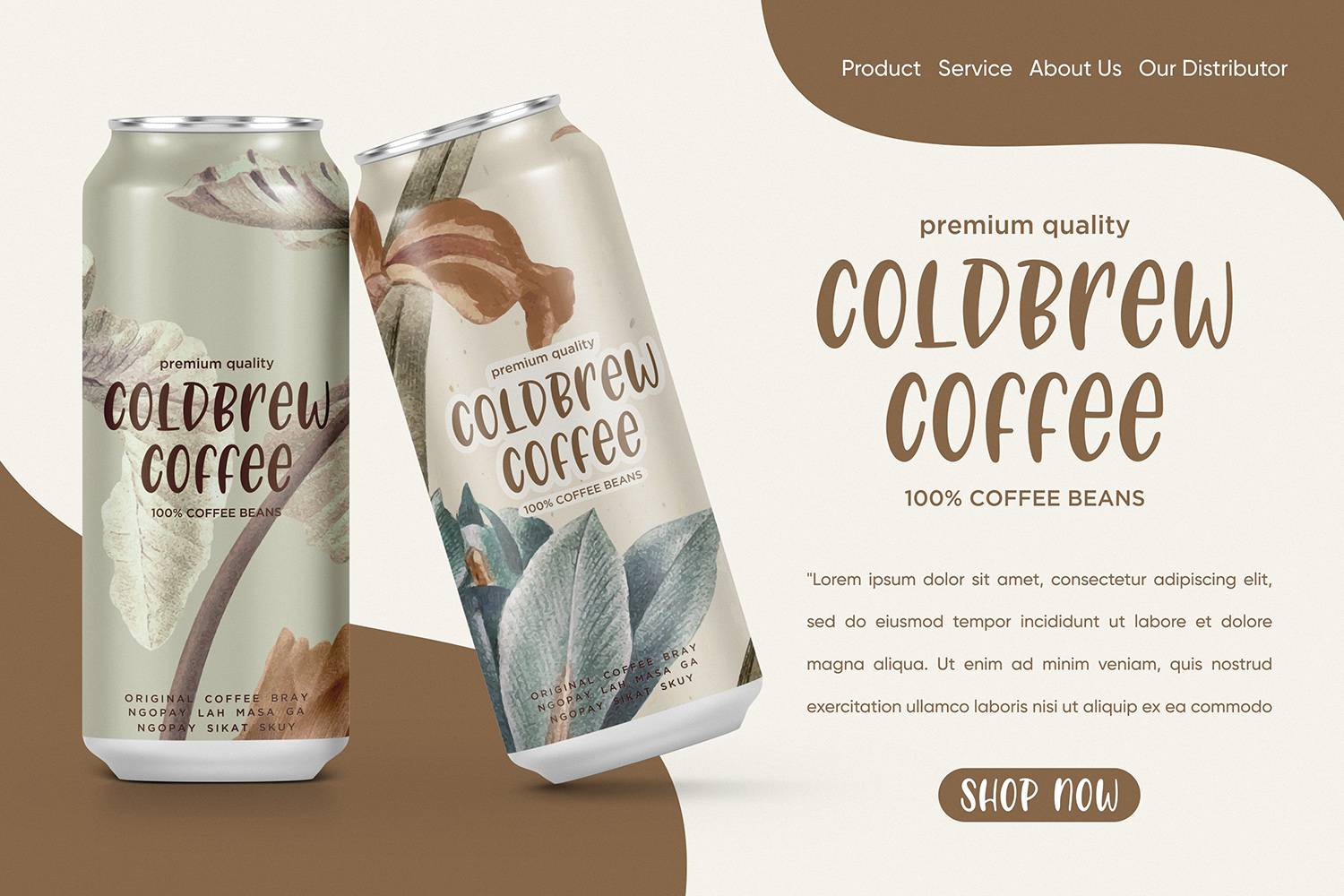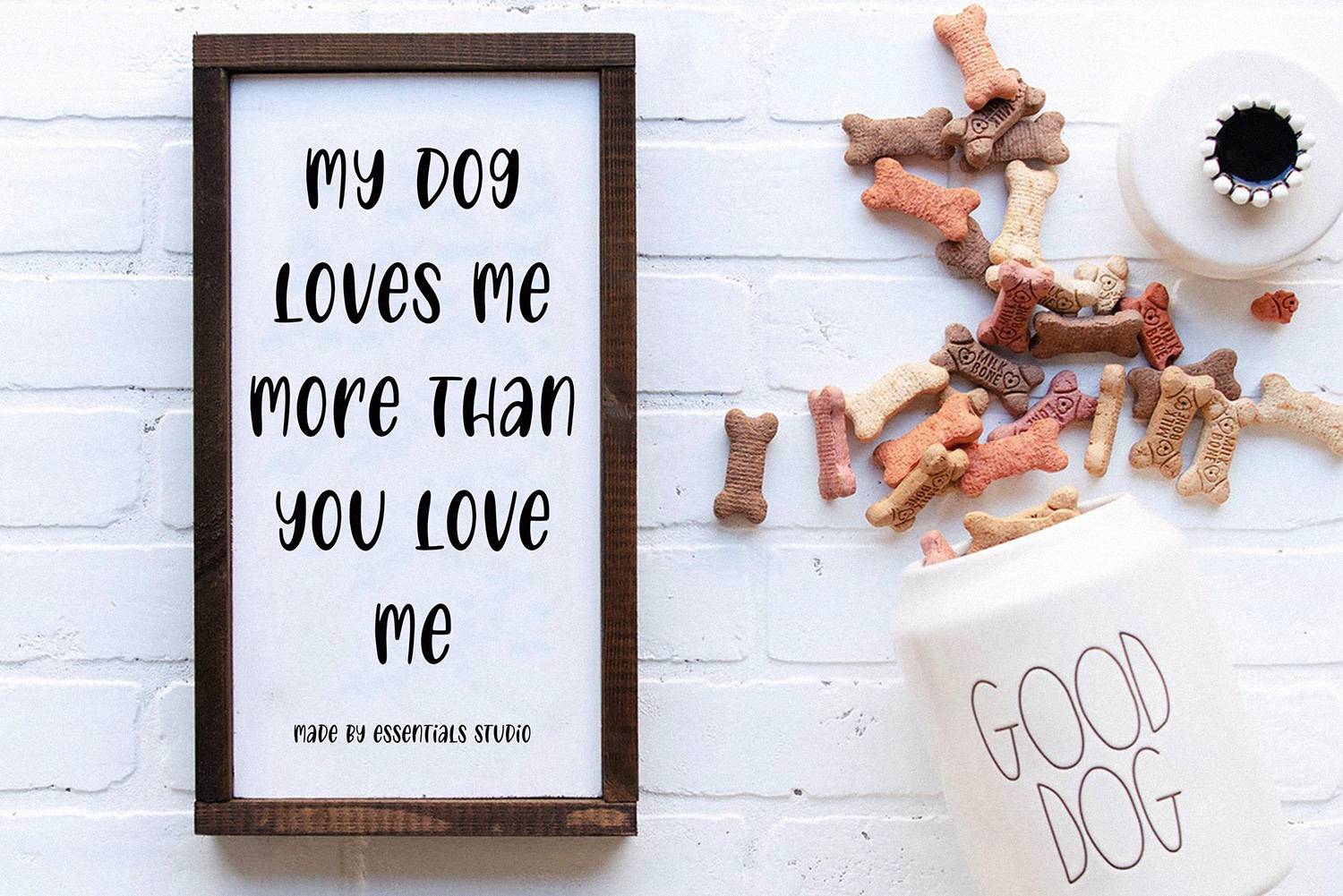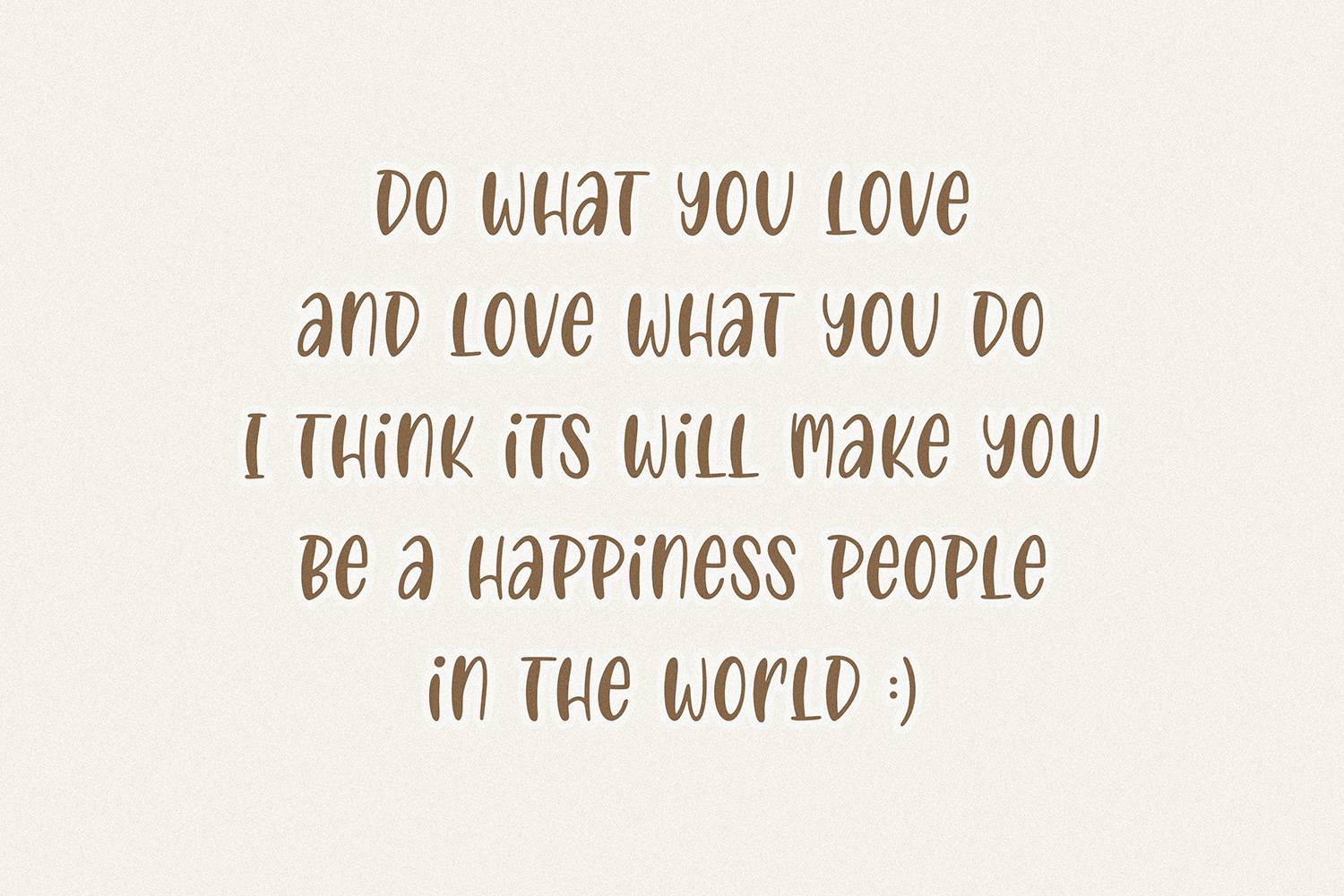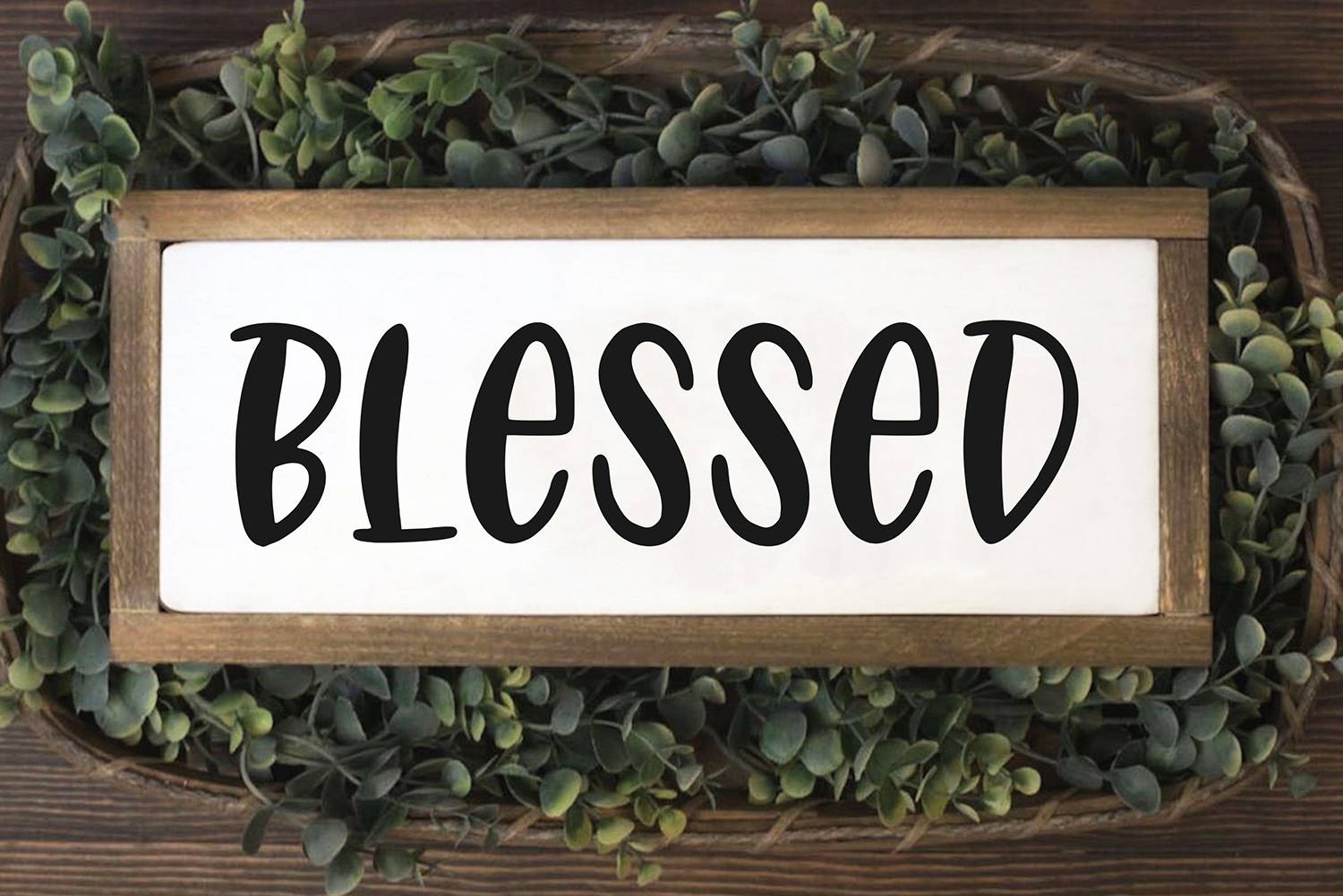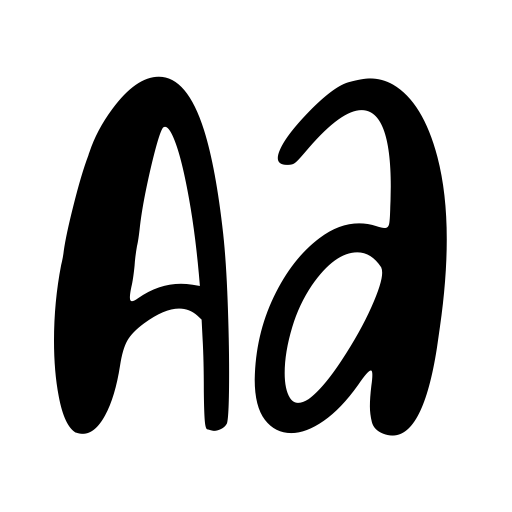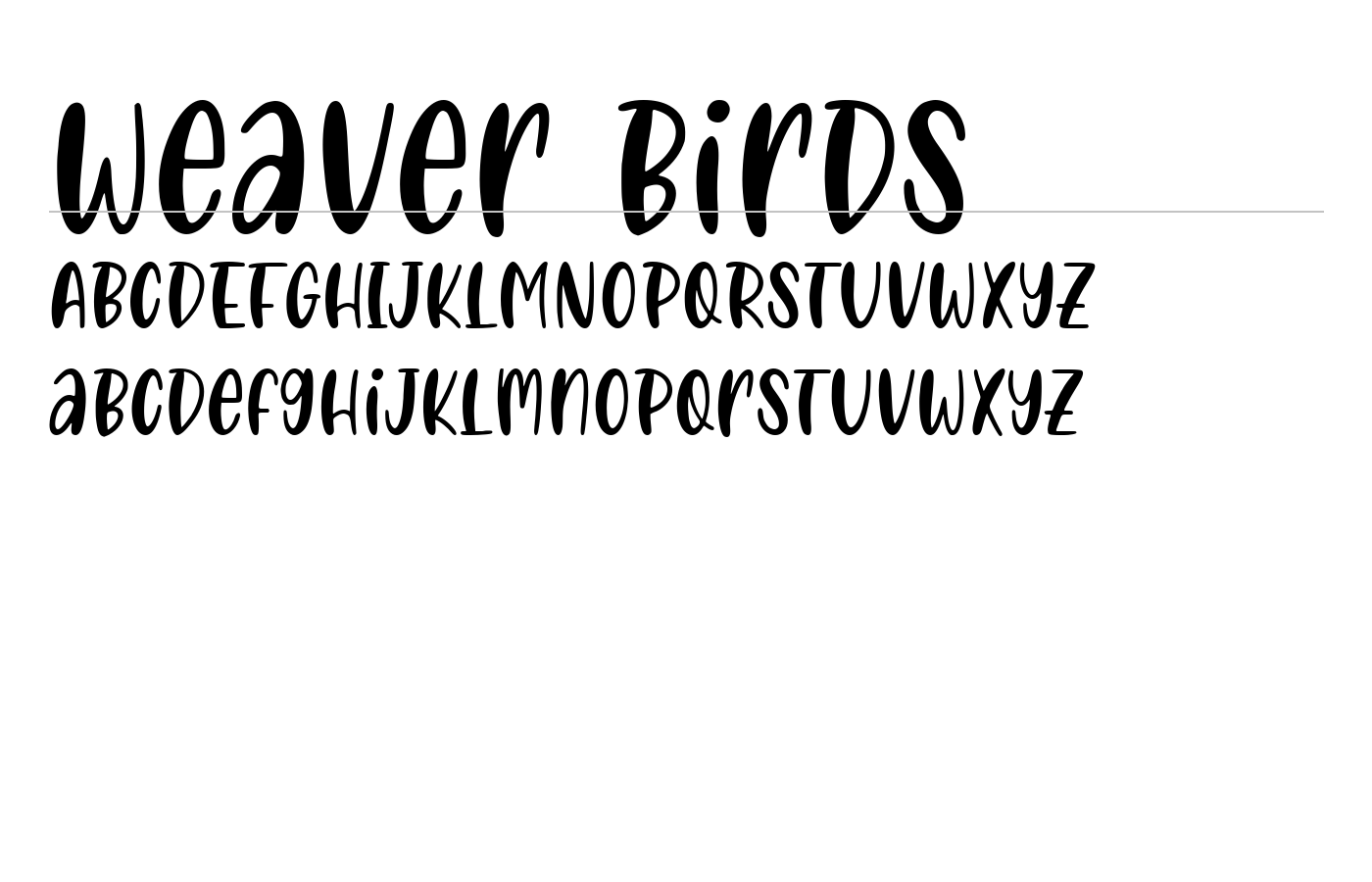
Weaver Birds is a playful and casual handwritten sans serif font with a friendly, organic feel. Its tall x-height and slightly irregular letterforms create a warm and approachable personality, perfect for creative, fun, and informal design projects. This font works well for logos, packaging, and invitations where a personal and lively touch is desired.
Weaver Birds Font
About Weaver Birds Font